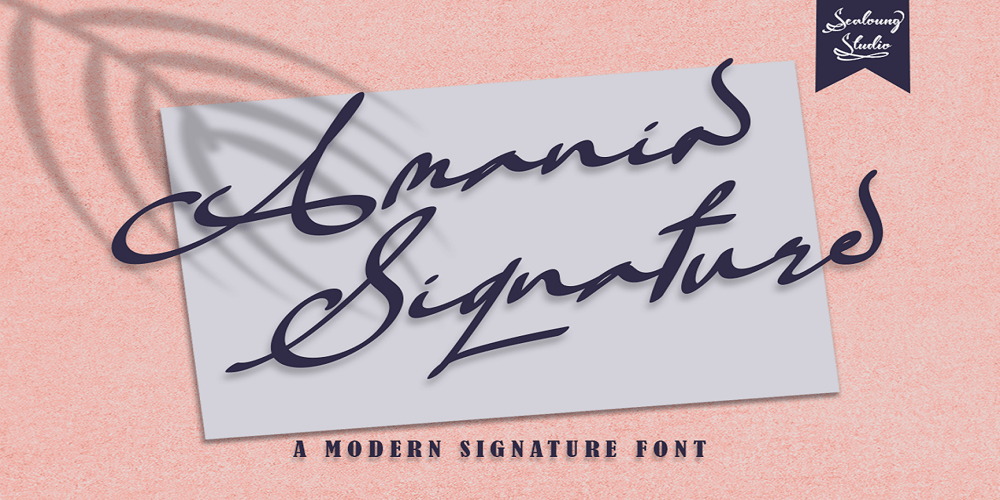
Amania Font Family was designed by Saiful Anwar and published by Sealoung. Amania contains 1 styles and family package options. Amania Signature is a unique and elegant handwritten font. It looks beautiful on a variety of designs requiring a personalized style, such as wedding invitations, thank you cards, weddings, greeting cards, logos and so on. This font is PUA encoded which means you can access all of the glyphs and swashes with ease!